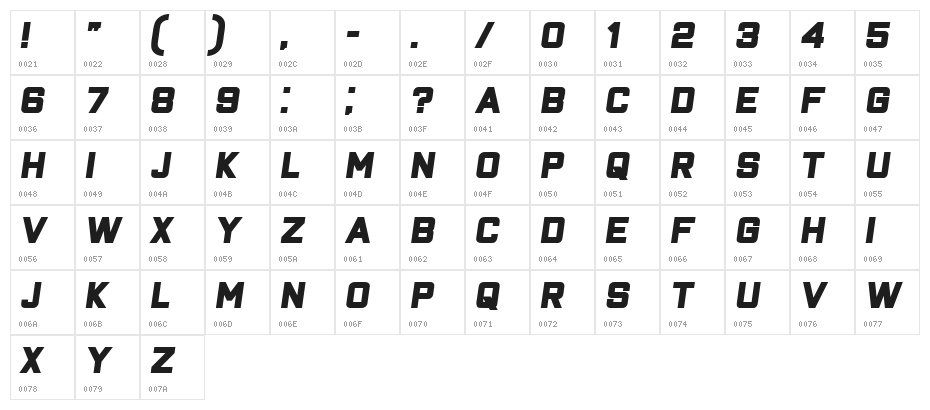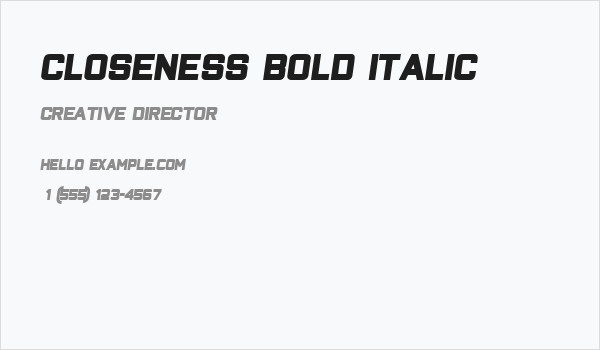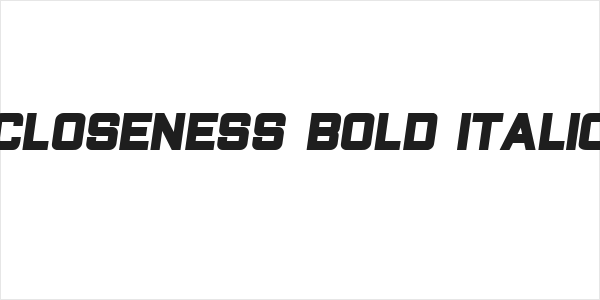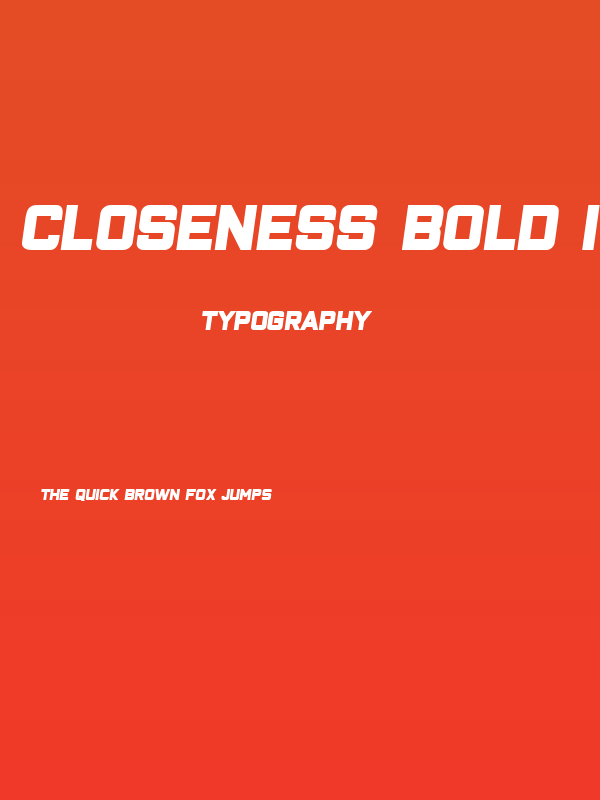
Closeness Bold Italic Font
Closeness Bold Italic Description
This font features a bold and italicized style with a modern and dynamic appearance. The characters are slightly slanted, giving a sense of motion and energy. The strokes are thick and consistent, providing a strong presence. The uppercase and lowercase letters maintain a uniform width, contributing to a cohesive look. The numerals are bold and clear, ensuring readability. Special characters are designed with the same boldness, integrating seamlessly with the rest of the font. This font is ideal for projects that require a strong and impactful visual statement.
| Proposed Projects | Ideal for sports branding, dynamic posters, and modern advertising campaigns. |